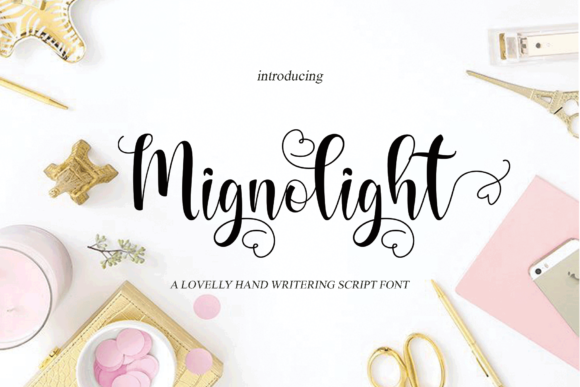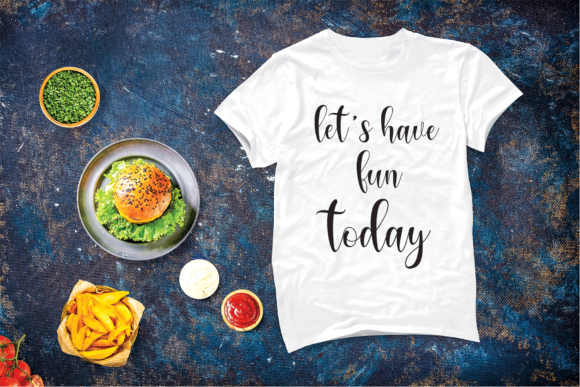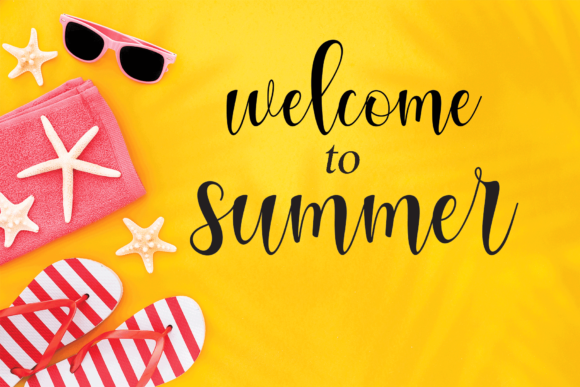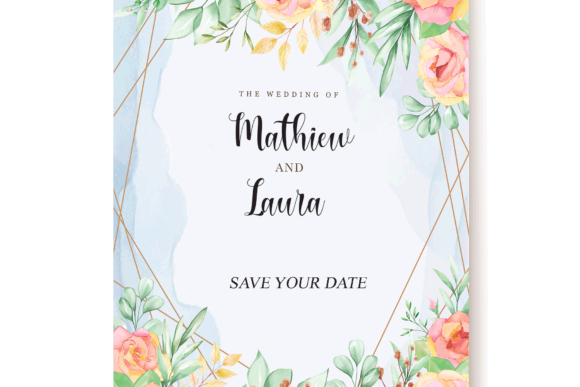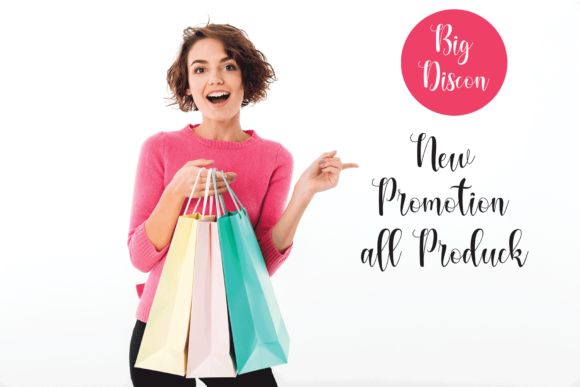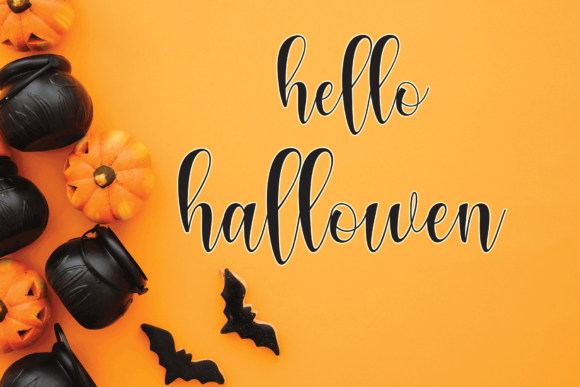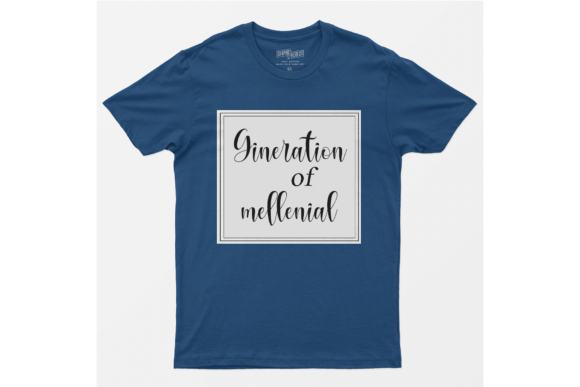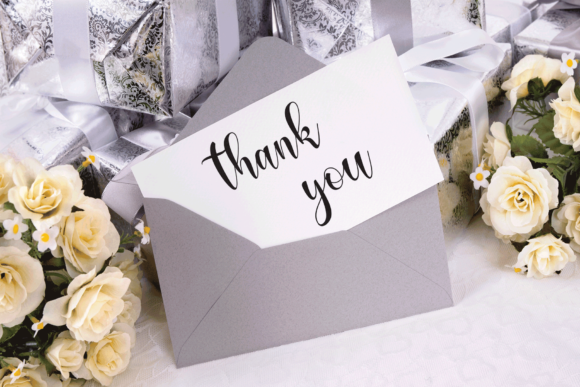
Mignolight Font
About Mignolight Font
Introducing “Mignolight,” a stunning script font that captures the essence of authenticity and beauty. With its varying baseline, smooth lines, gorgeous glyphs, and stunning alternates, “Mignolight” is the perfect choice for creating a wide array of visually captivating designs. Let’s delve into the exquisite features that make “Mignolight” a standout font for your creative projects.
Authentic Feel: “Mignolight” exudes an authentic and organic feel, making it a captivating script font that adds a touch of elegance to any design. Its natural flow and graceful strokes create a sense of handcrafted beauty, enhancing the overall visual appeal of your creations.
Versatile Applications: This font’s versatility shines through in its ability to complement a range of design projects. From creating gorgeous wedding invitations and stunning stationary art to crafting eye-catching social media posts and adorable greeting cards, “Mignolight” adapts seamlessly to various design contexts.
Smooth Lines: The smooth lines of “Mignolight” give it a refined and polished appearance, making it an excellent choice for projects that require a sense of sophistication and class. Whether it’s for professional branding or elegant event invitations, this font elevates your designs to new heights.
Stunning Alternates: “Mignolight” boasts a collection of stunning alternates that offer creative options to customize the font’s appearance. These alternate glyphs allow you to add unique touches to your designs, making them even more visually captivating and distinctive.
PUA Encoded: The font is PUA encoded, which means you can easily access all the cute glyphs and swashes. This opens up a world of decorative possibilities, giving you the freedom to enhance your designs with charming embellishments effortlessly.
Special Ligatures: “Mignolight” goes beyond its gorgeous appearance with special ligatures, enhancing the flow and visual harmony of the font. These ligatures add a touch of finesse to your text and contribute to the overall elegance of your designs.
Create Emotionally Engaging Designs: With “Mignolight,” you can create designs that evoke emotion and connect with your audience on a deeper level. Its authentic and heartfelt feel adds a personal touch to your work, making it memorable and impactful.
In conclusion, “Mignolight” is an exceptional script font that combines authenticity and elegance seamlessly. Its varying baseline, smooth lines, gorgeous glyphs, and stunning alternates make it a joy to work with, and its versatility allows it to shine across various design applications. Whether you’re crafting wedding invitations, stationary art, social media posts, or greeting cards, “Mignolight” will help you create visually captivating and emotionally engaging designs that leave a lasting impression.